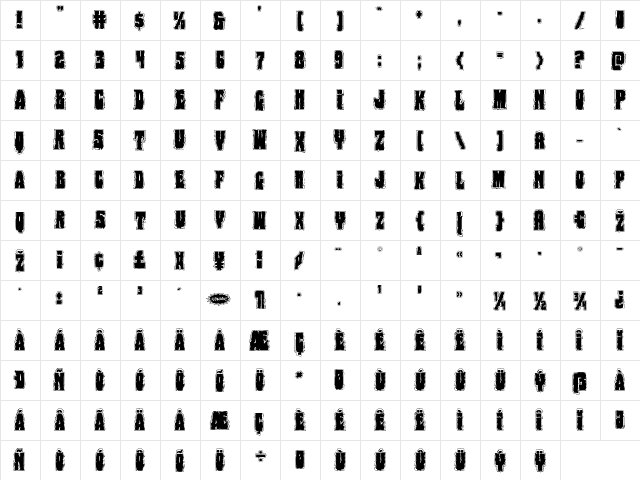
Bog Beast College Regular
Design Context for Bog Beast College Typeface
Bog Beast College brings high-energy athletic personality to the page — its confident, muscular forms are built for impact.
A natural choice for gym brands, fantasy sports, jersey lettering, and action-driven headlines.
Pro Tip: Use Bog Beast College in all-caps headlines where its athletic energy can fully express itself. Pair with a solid, simple sans for supporting text.